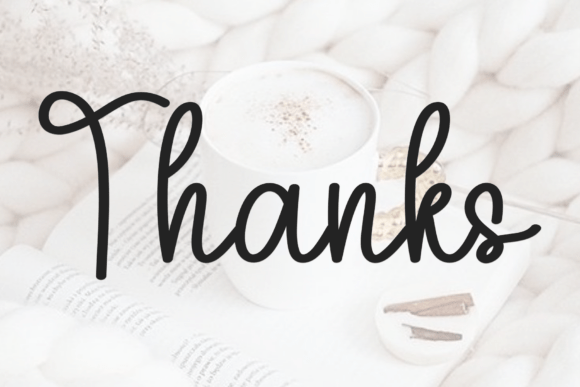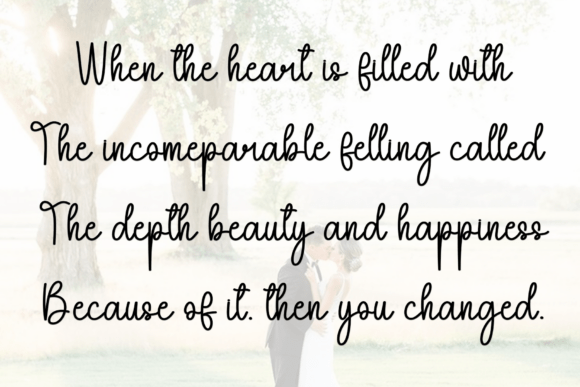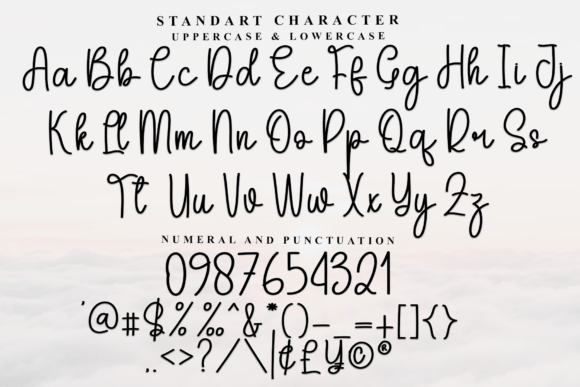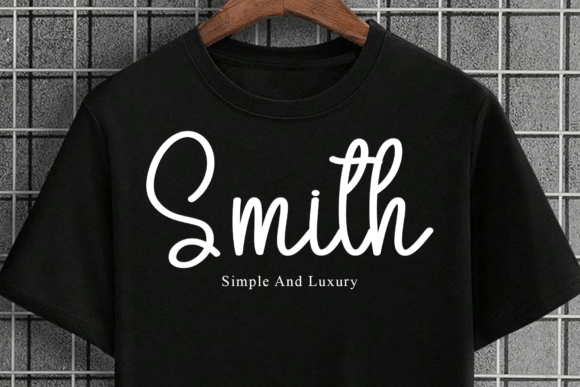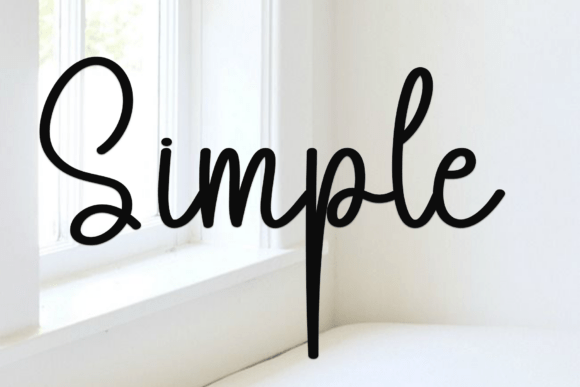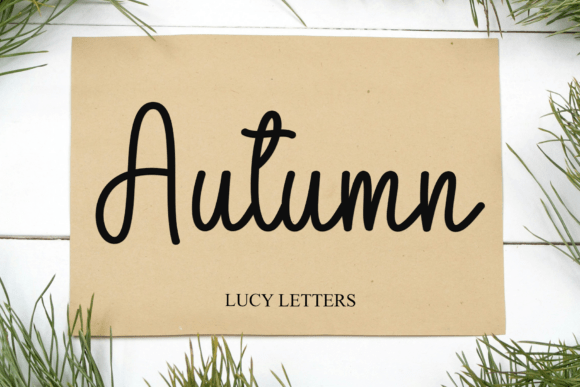
Introducing Butterfly Font: Add a Touch of Holiday Magic to Your Designs
The holiday season is upon us, and what better way to capture its festive spirit than with a unique and enchanting font? Look no further than Butterfly Font, a merry and decorative typeface that’s perfect for adding a touch of whimsy to your designs. In this article, we’ll explore the features and benefits of Butterfly Font, and how it can elevate your holiday-themed projects.
Butterfly Font is a beautifully crafted typeface that embodies the joy and wonder of the holiday season. Its decorative elements and whimsical flair make it an ideal choice for designers and crafters looking to add a touch of magic to their work. Whether you’re creating greeting cards, gift tags, or holiday-themed projects, this font is sure to bring a cheerful and nostalgic ambiance to your words.
Butterfly Font is specifically designed with the holiday season in mind. Its festive and merry design makes it perfect for a wide range of projects, including:
- Greeting cards: Add a personal touch to your holiday cards with Butterfly Font’s whimsical and decorative design.
- Gift tags: Make your gifts stand out with beautifully designed tags featuring Butterfly Font.
- Holiday-themed projects: From invitations to party decorations, Butterfly Font is the perfect choice for any holiday project.
Butterfly Font offers a range of features and benefits that make it an ideal choice for designers and crafters. Some of its key features include:
- Decorative elements: Add a touch of whimsy to your designs with Butterfly Font’s decorative elements, including swashes and flourishes.
- Whimsical design: Butterfly Font’s whimsical design makes it perfect for holiday-themed projects.
- Easy to use: Butterfly Font is simple to use, even for those without extensive design experience.
Why Choose Butterfly Font?
With so many fonts available, why choose Butterfly Font? Here are just a few reasons why this font stands out:
- Unique design: Butterfly Font’s unique design makes it stand out from more traditional fonts.
- Festive and merry: This font is specifically designed to capture the spirit of the holiday season.
- Versatile: Butterfly Font can be used for a wide range of projects, from greeting cards to holiday-themed decorations.
Butterfly Font is a beautifully crafted typeface that’s perfect for adding a touch of holiday magic to your designs. With its decorative elements, whimsical flair, and PUA encoding, this font is an ideal choice for designers and crafters looking to create festive and merry projects. Whether you’re creating greeting cards, gift tags, or holiday-themed projects, Butterfly Font is sure to bring a cheerful and nostalgic ambiance to your words. So why wait? Download Butterfly Font today and let your typography shine with the magic of the holiday season!